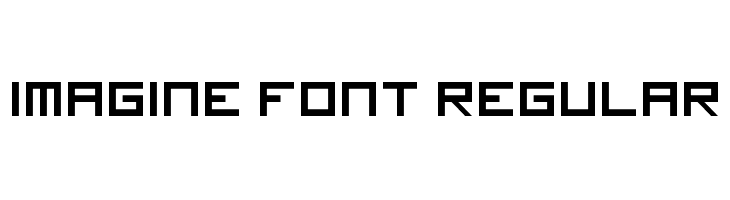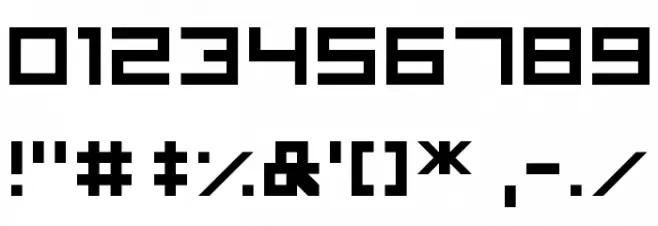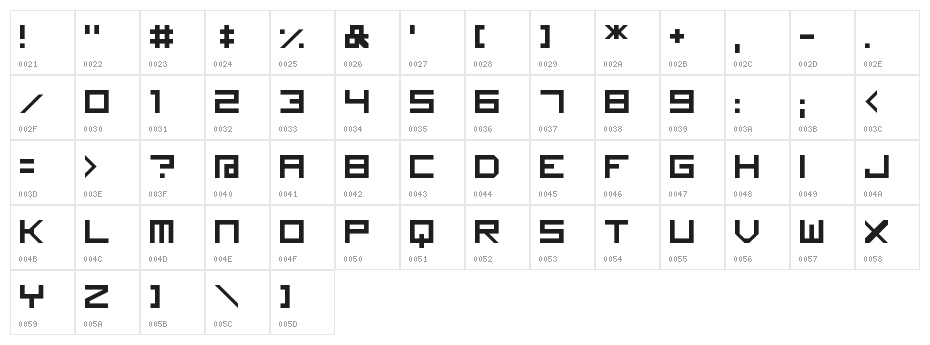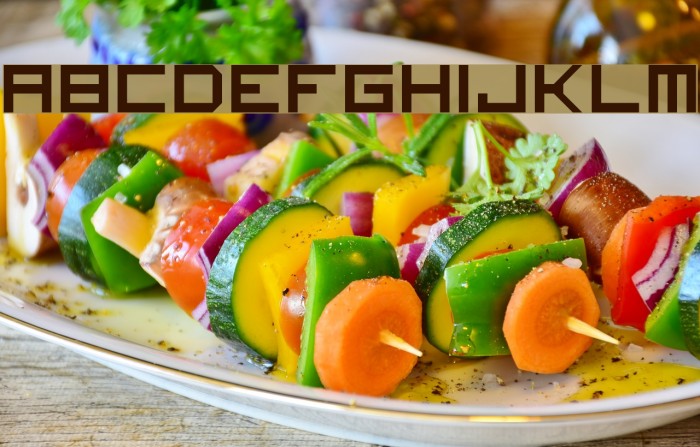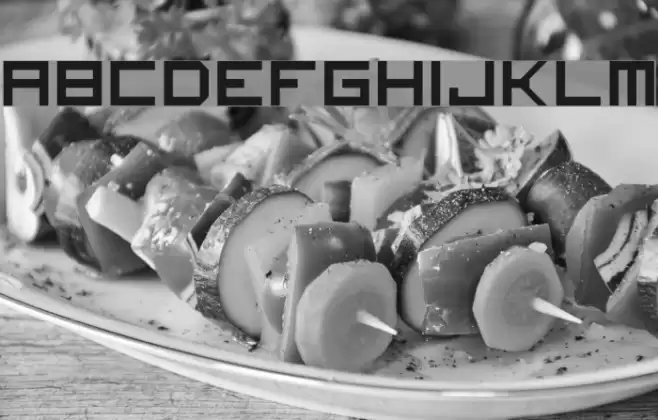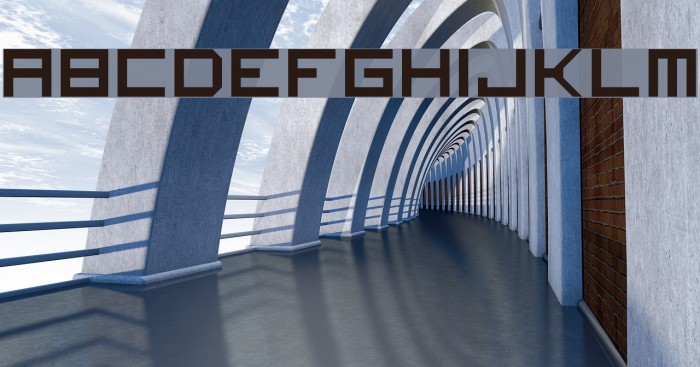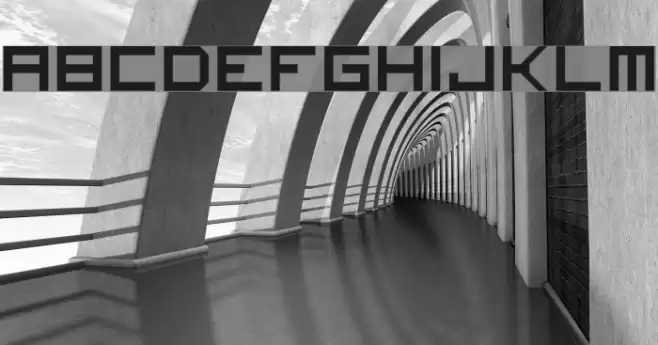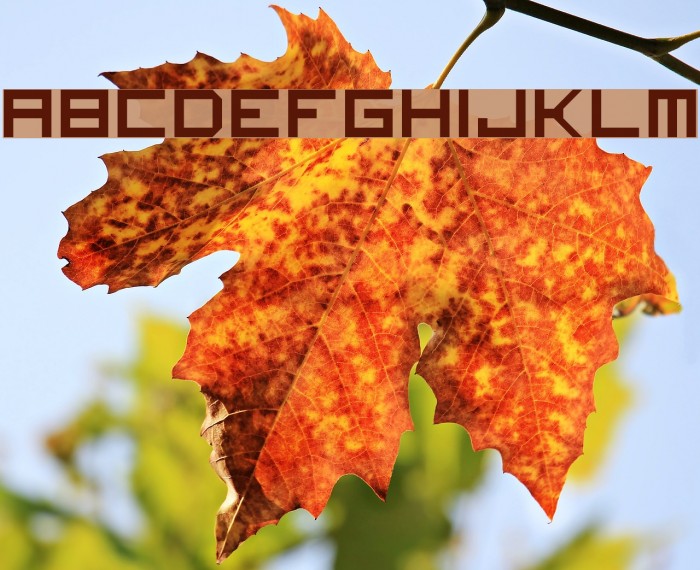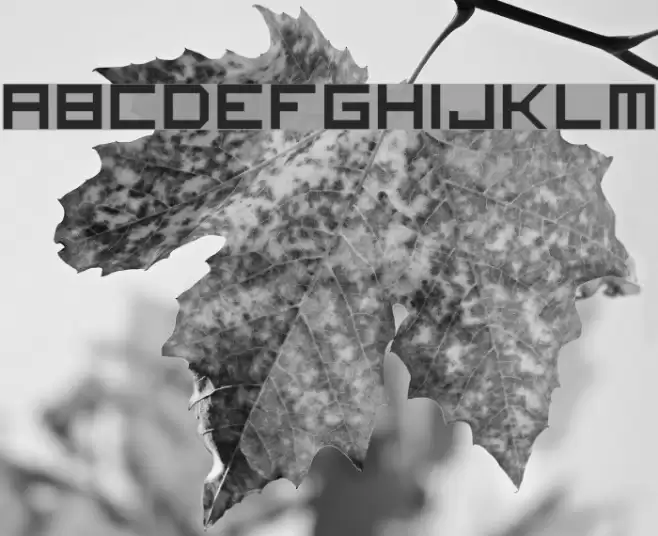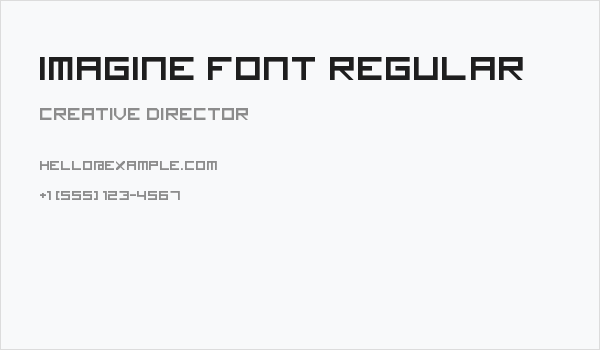
imagine font Regular Font
imagine font Regular Description
This font features a bold, geometric design with a distinctly modern and futuristic aesthetic. The characters are constructed with sharp angles and straight lines, creating a sense of precision and clarity. The uppercase and lowercase letters maintain a consistent height, contributing to a uniform appearance. The numerals and special characters follow the same design principles, ensuring a cohesive look across all glyphs. The font's structure is reminiscent of digital or technological themes, making it suitable for projects that require a contemporary and innovative feel. Its strong visual impact is achieved through the use of thick strokes and minimal contrast, emphasizing its boldness and readability.